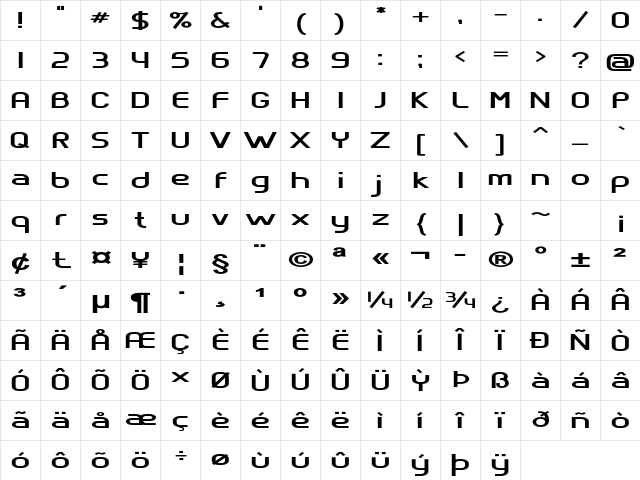
Nanton Extra-expanded Bold
Style: Extra-expanded Bold
Design Context for Nanton
Nanton is a composed and adaptable typeface that performs quietly and consistently across a wide range of design contexts. Its bold stroke weight gives it real presence on the page.